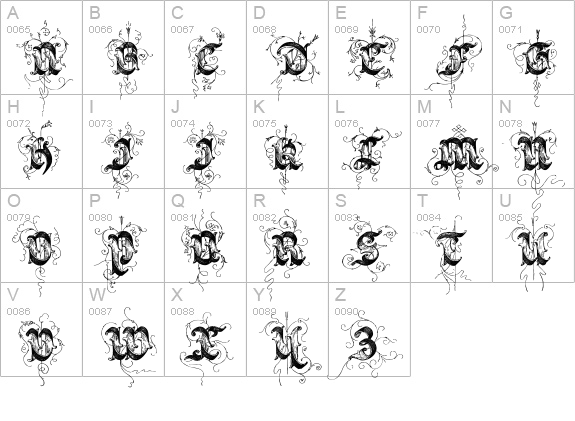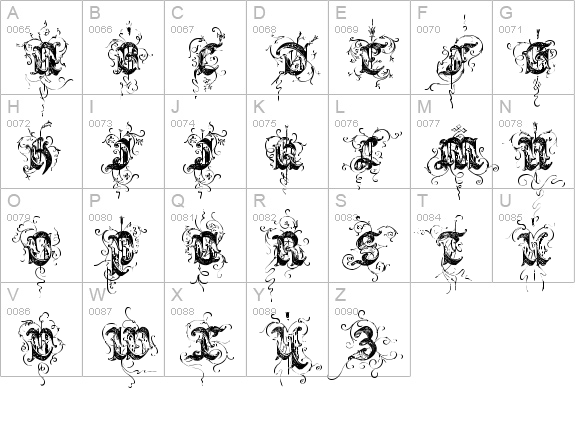
Saraband Initials Font Details
Saraband Initials font is a stunning display typeface that exudes elegance and sophistication. With its intricately designed uppercase letters, this font is perfect for creating eye-catching headlines, logos, and invitations. The timeless appeal of Saraband Initials font lies in its exquisite details and graceful curves. Each letter is meticulously crafted, showcasing the artistry and craftsmanship of the designer. Whether used as a single initial or combined to create monograms, this font instantly adds a touch of class and refinement to any project. One of the most remarkable aspects of Saraband Initials font is that it is freely available to download at FontsMarket.com. This means that you can enjoy the beauty and versatility of this font without any cost. The accessibility of this font allows designers, students, and enthusiasts to explore their creativity without limitations. The versatility of Saraband Initials font extends beyond its use in digital designs. With its high-quality outlines, this font can be easily used for various print projects, such as wedding invitations, business cards, and stationery. Its timeless appeal ensures that your designs will stand the test of time and make a lasting impression. Whether you're a professional designer or someone looking to add a touch of elegance to your personal projects, Saraband Initials font is a must-have. With its exceptional design and the fact that it is freely available to download at FontsMarket.com, this font offers both beauty and accessibility. Elevate your designs and make a statement with Saraband Initials font.